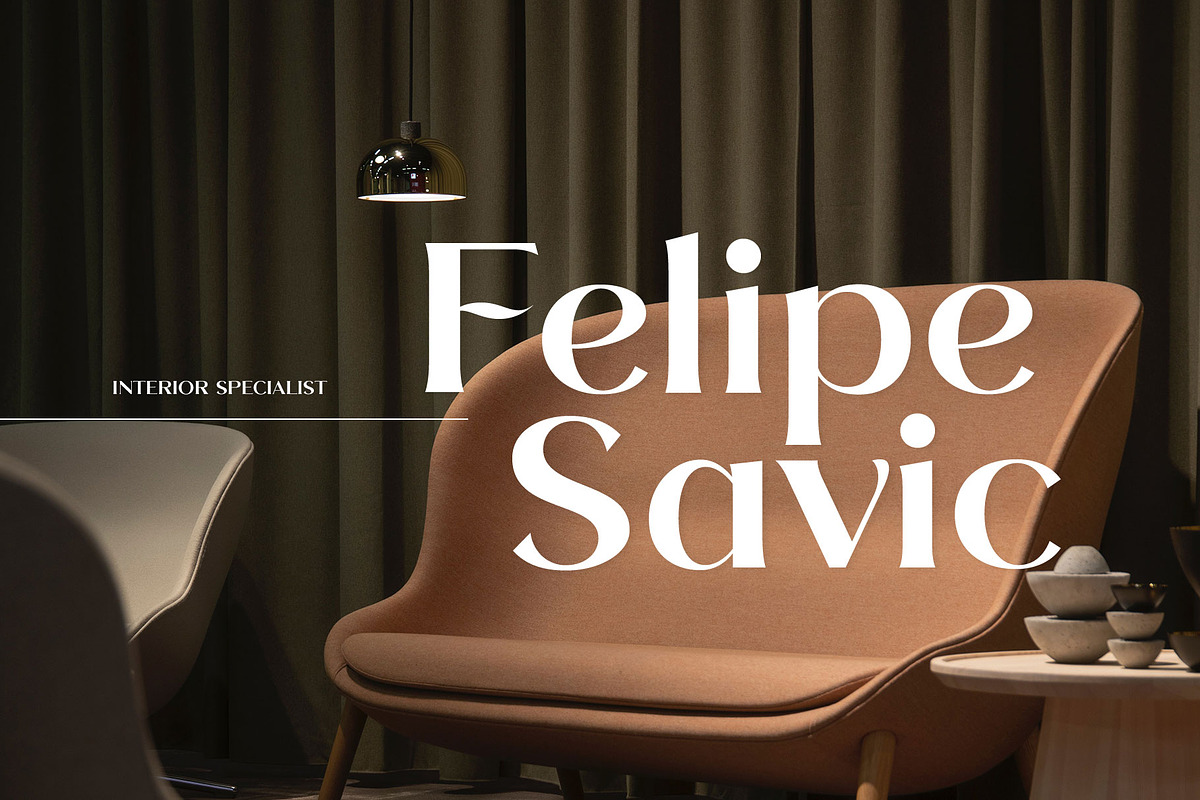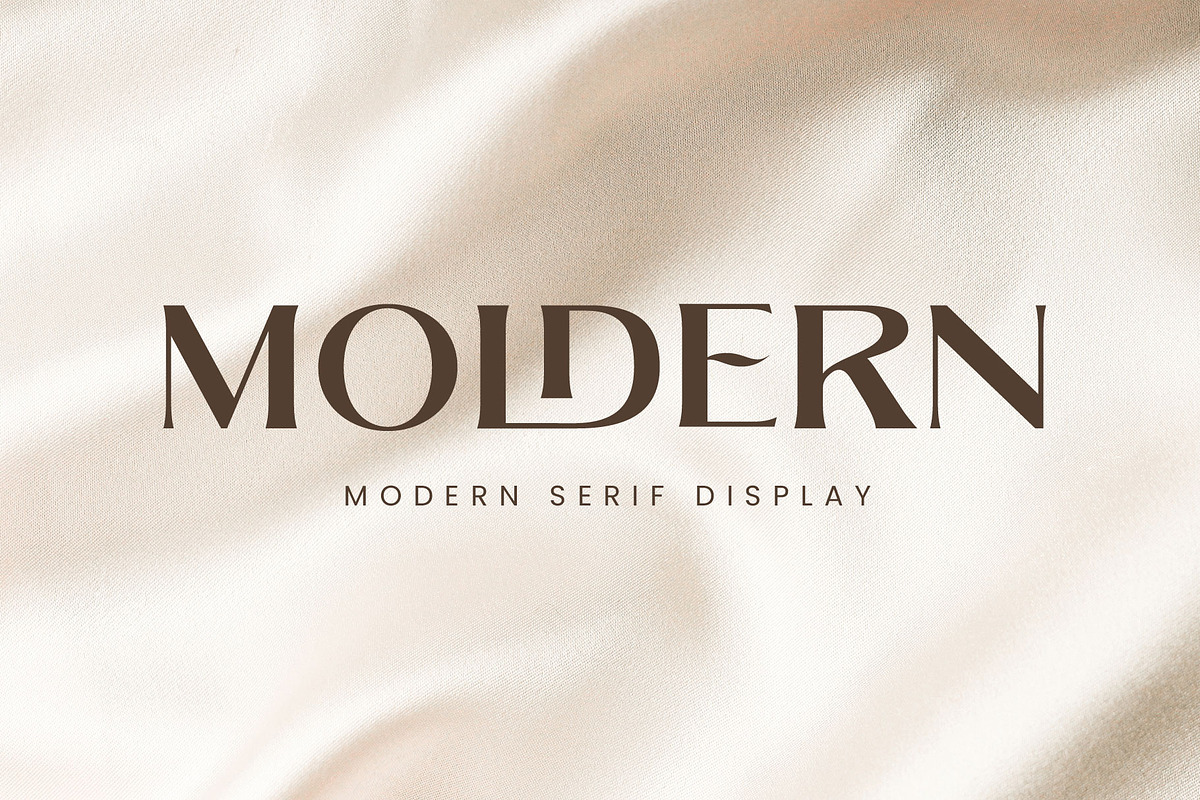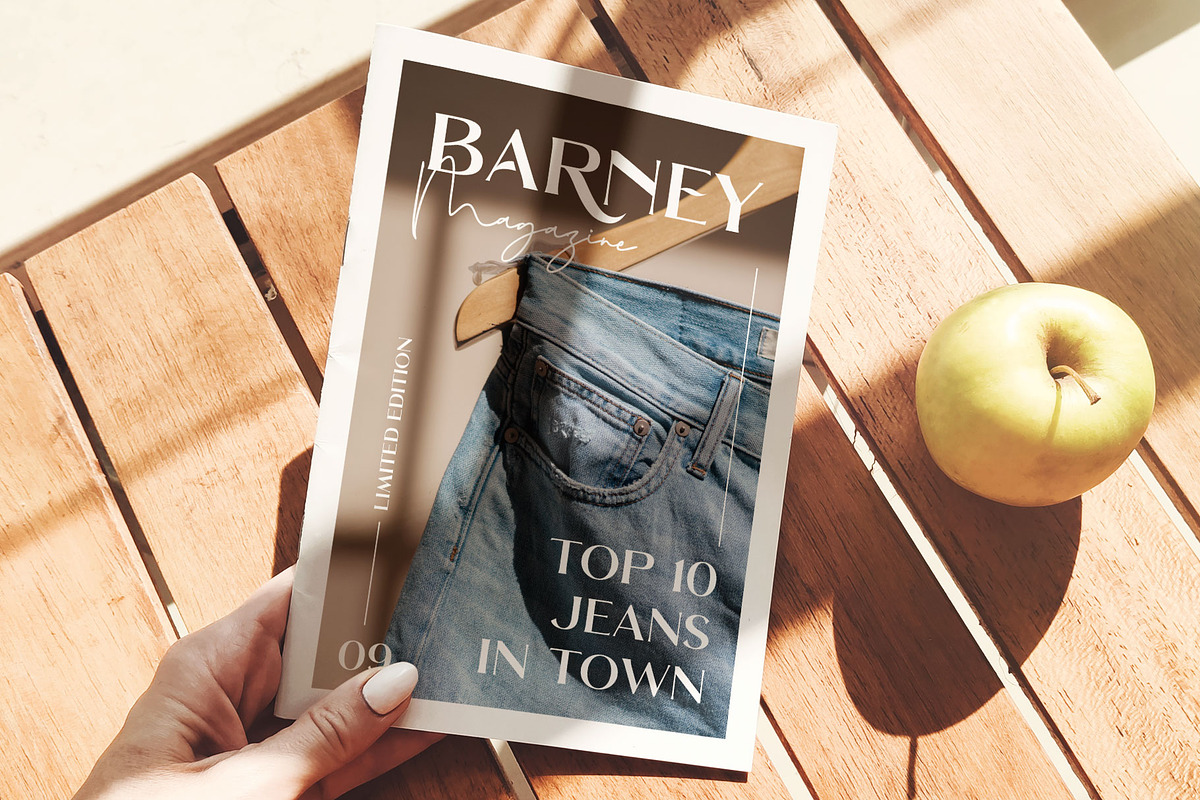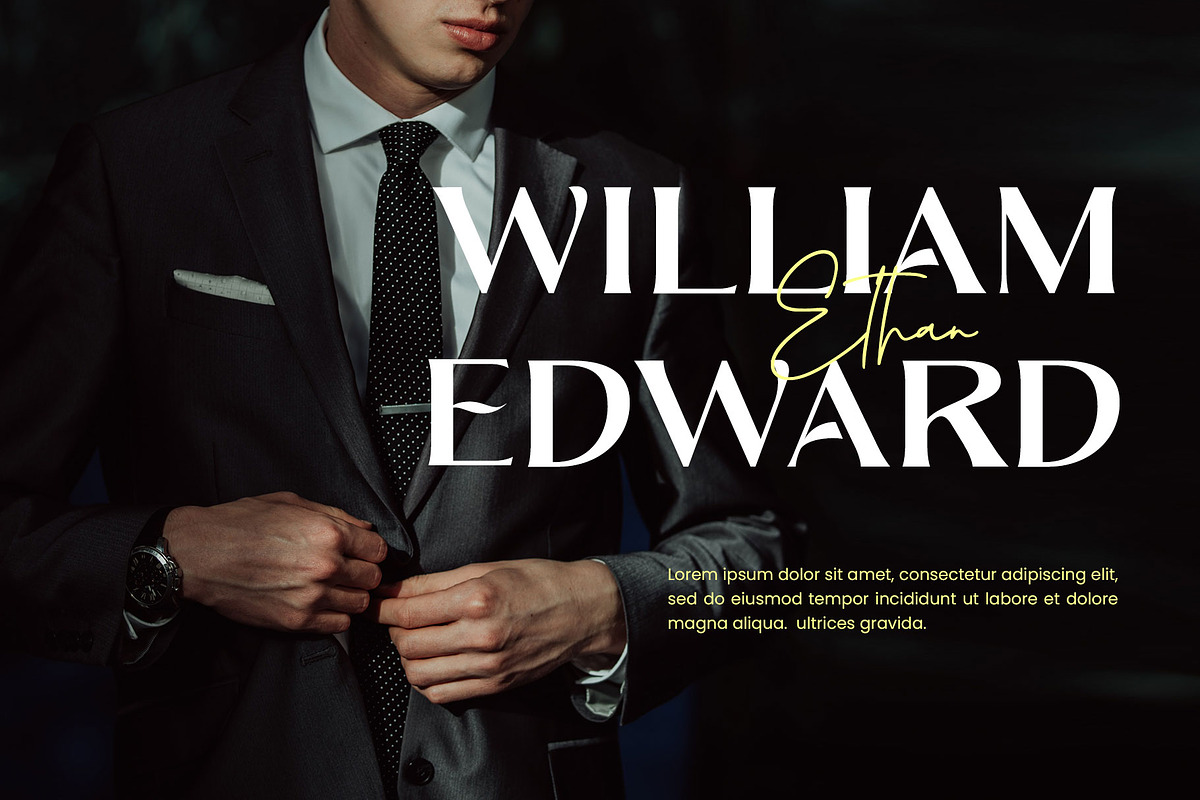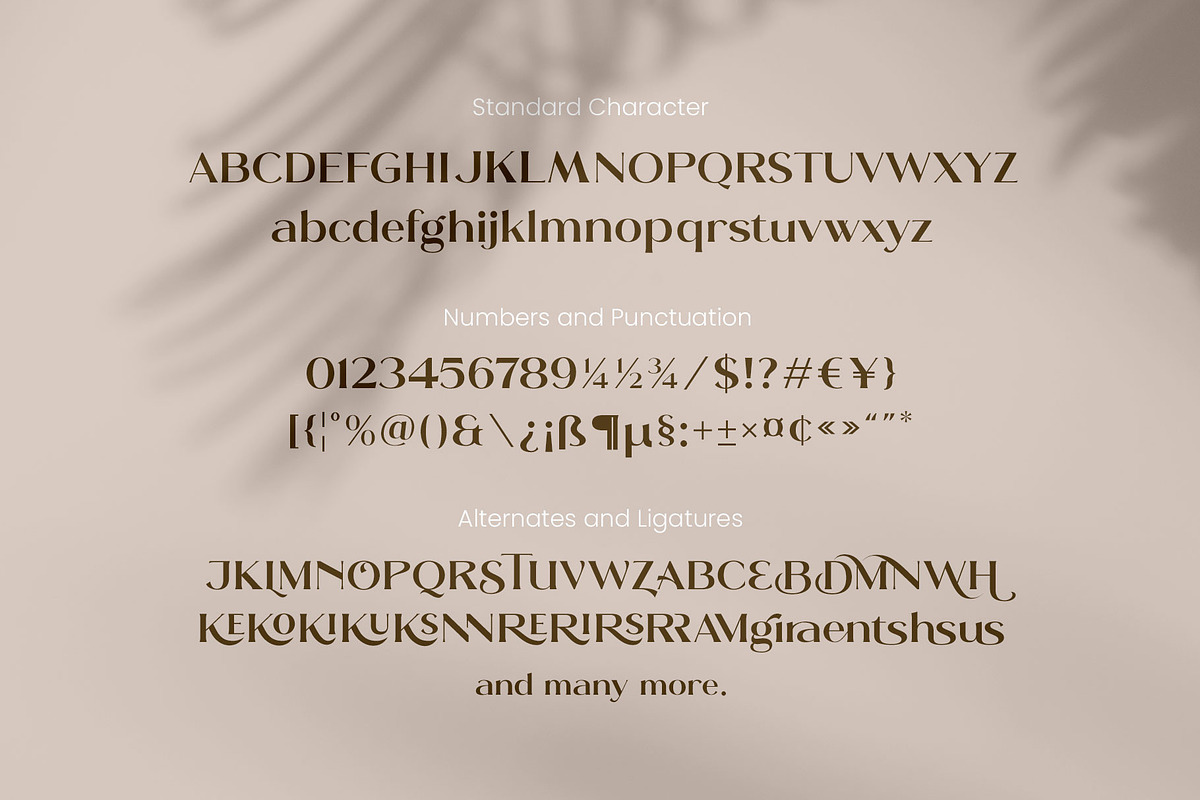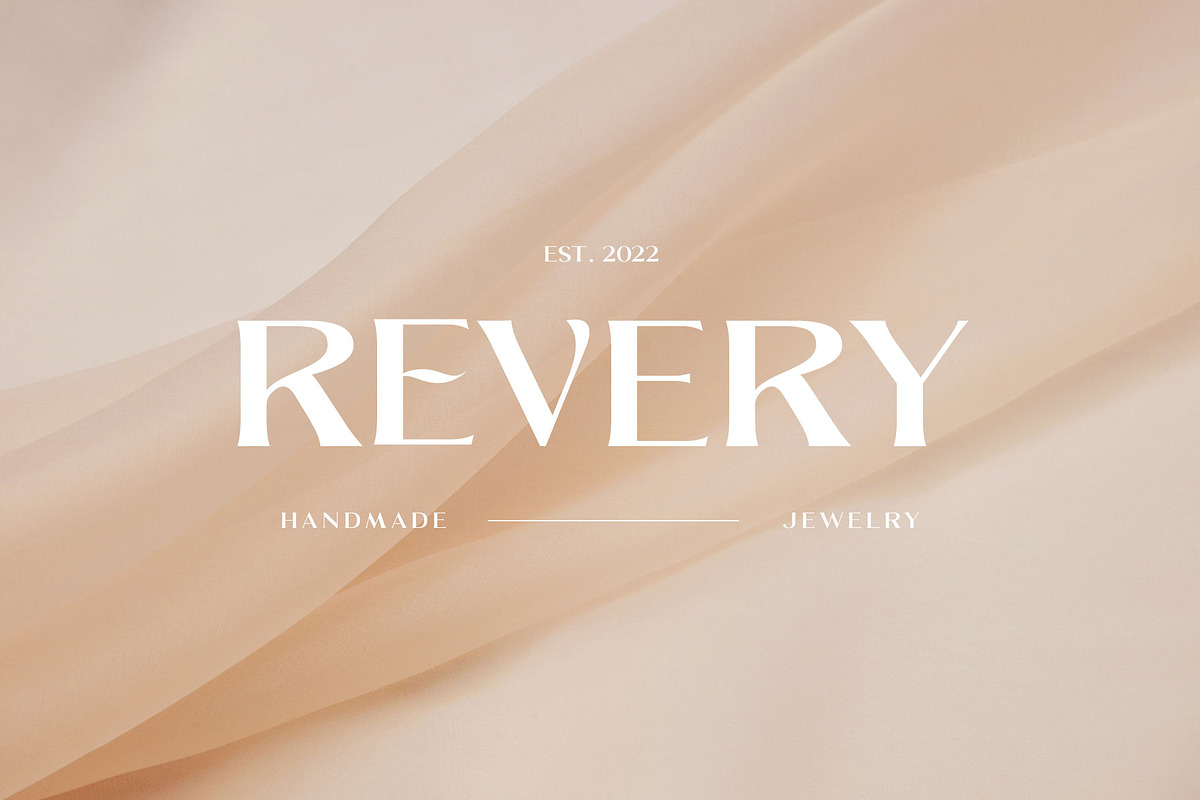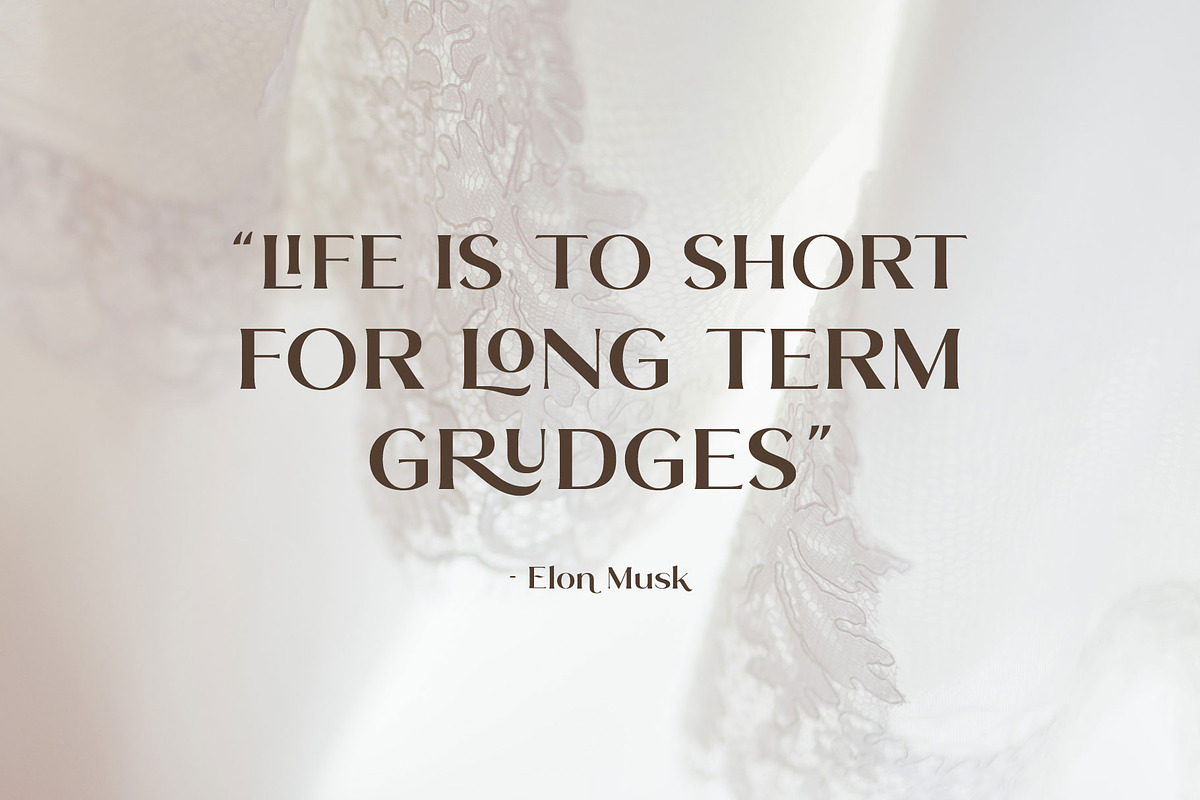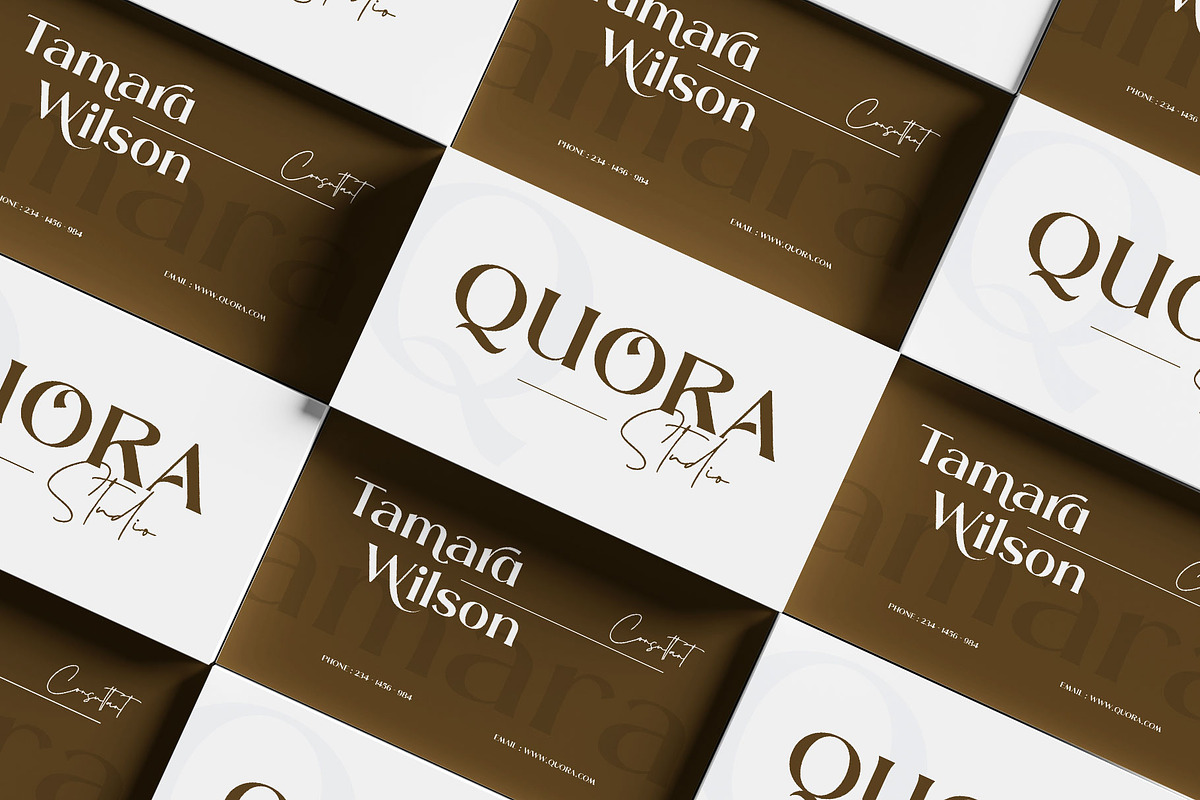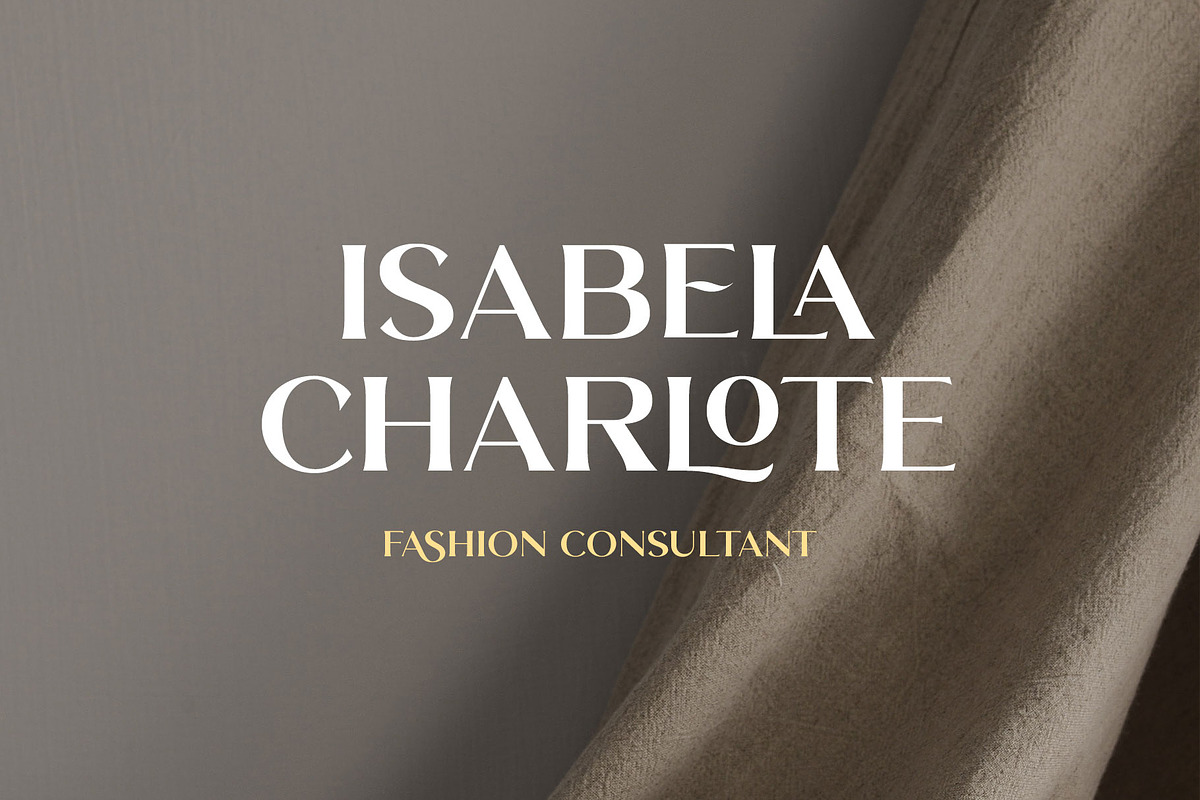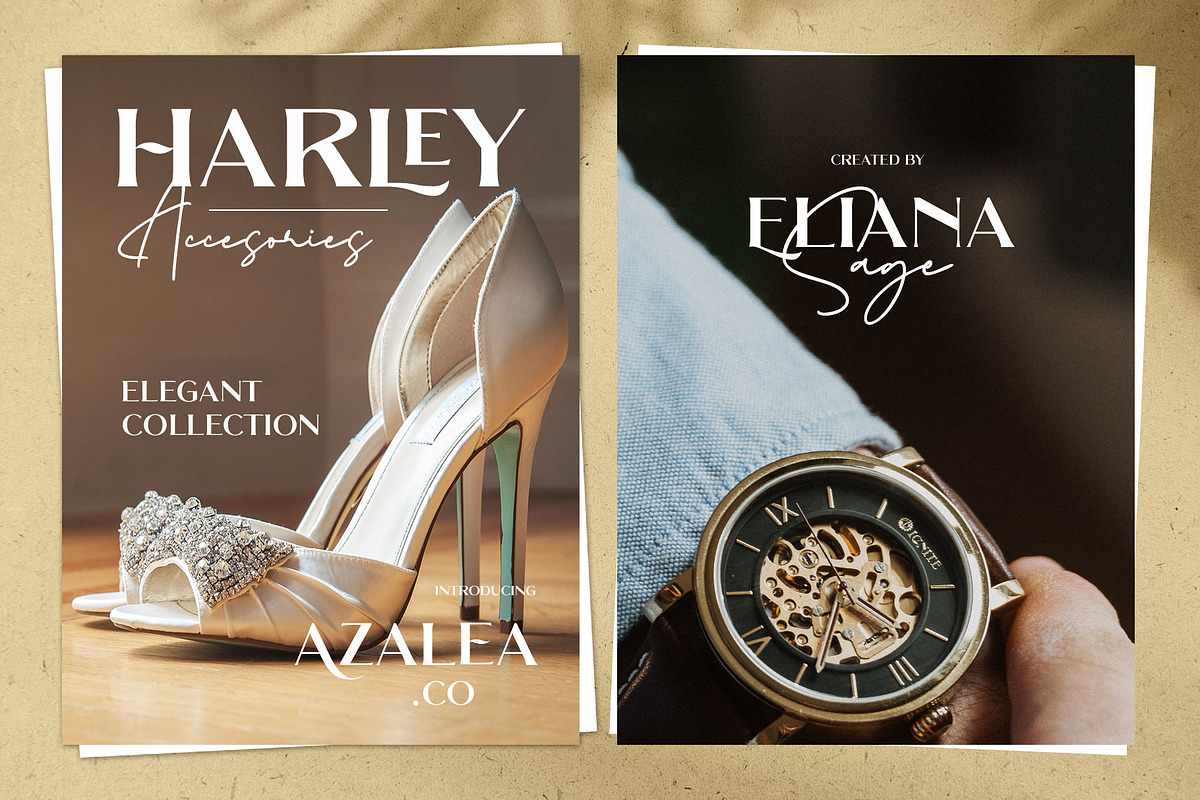
Moldern - Classy Serif
Moldern is a modern-style serif with stylish ligature explorations. Moldern combines decorative, vintage, and minimalist style with a bold weight that is suitable for display.
This font has a classy impression, feminine and expensive. You can apply this font for branding, fashion, logo, magazine, books, labels, invitations, cards, and more!
- Stylistic set
- Stylistic alternates
- Number & symbols